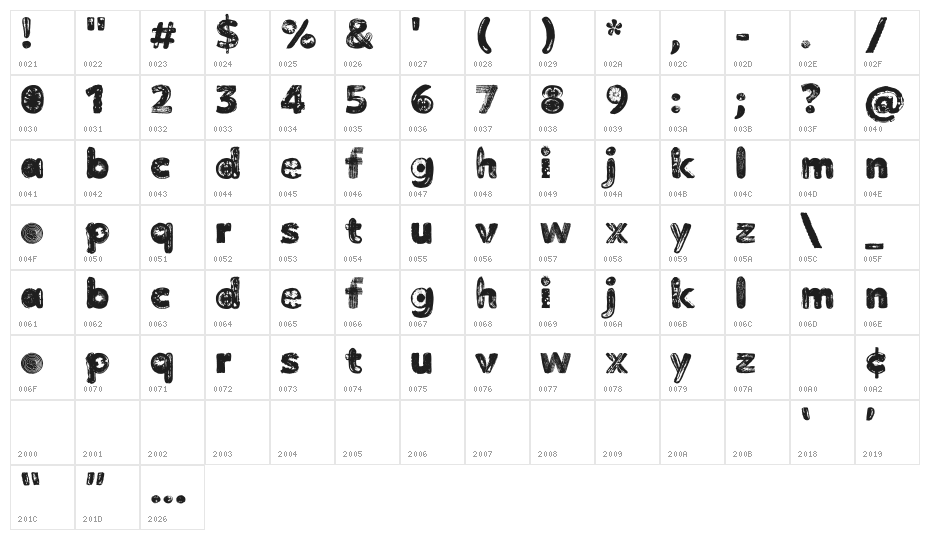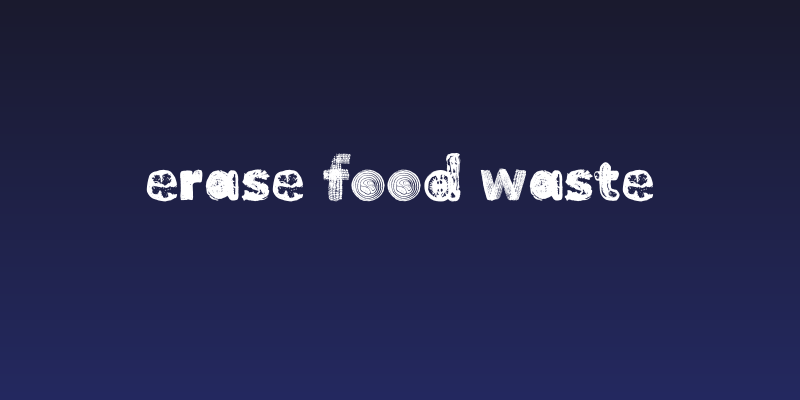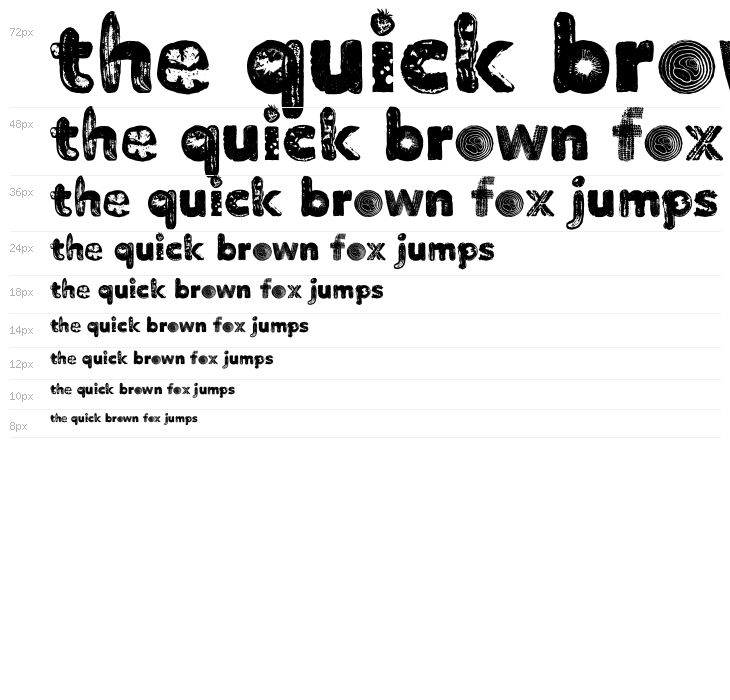
Erase Food Waste Font
Erase Food Waste Description
This font features a bold and distressed style, with each character appearing as if it has been stamped or printed with a rough texture. The letters have a playful and artistic feel, with varying levels of wear and tear that give them a unique, handcrafted appearance. The uppercase and lowercase letters maintain a consistent style, while the numbers and special characters follow suit with the same textured look. This font's rugged and imperfect design makes it stand out, adding a touch of creativity and personality to any project.
| Proposed Projects | Ideal for posters, album covers, branding projects, and any design that requires a bold, artistic touch. |